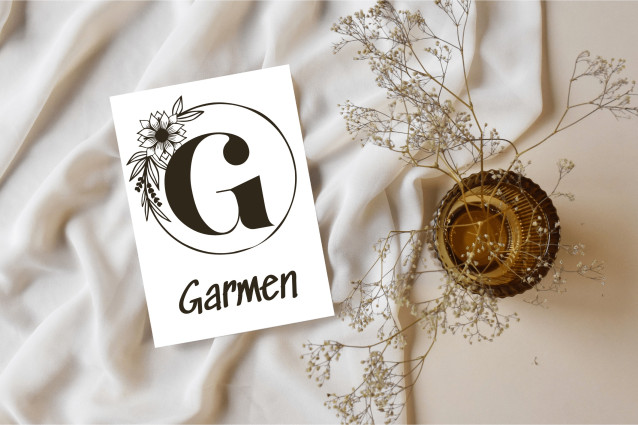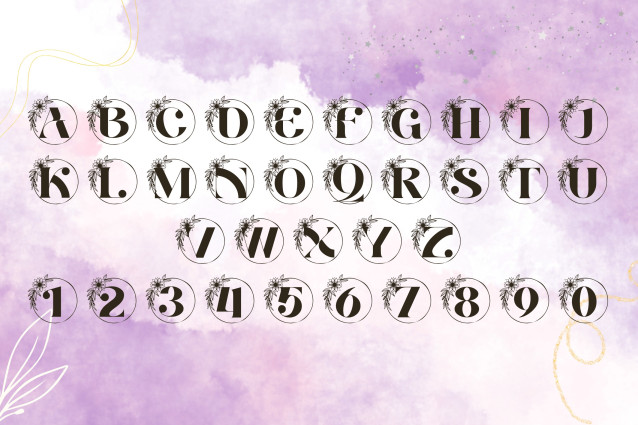
Aventine Floral Monogram Font
Aventine Floral Monogram is a luxurious and intricately designed decorative font that blends classic serif elegance with botanical flair. Each letter is adorned with floral embellishments, making it the perfect choice for high-end branding, wedding stationery, initials-based logos, and elegant packaging. Aventine brings timeless sophistication and natural beauty together in every glyph.